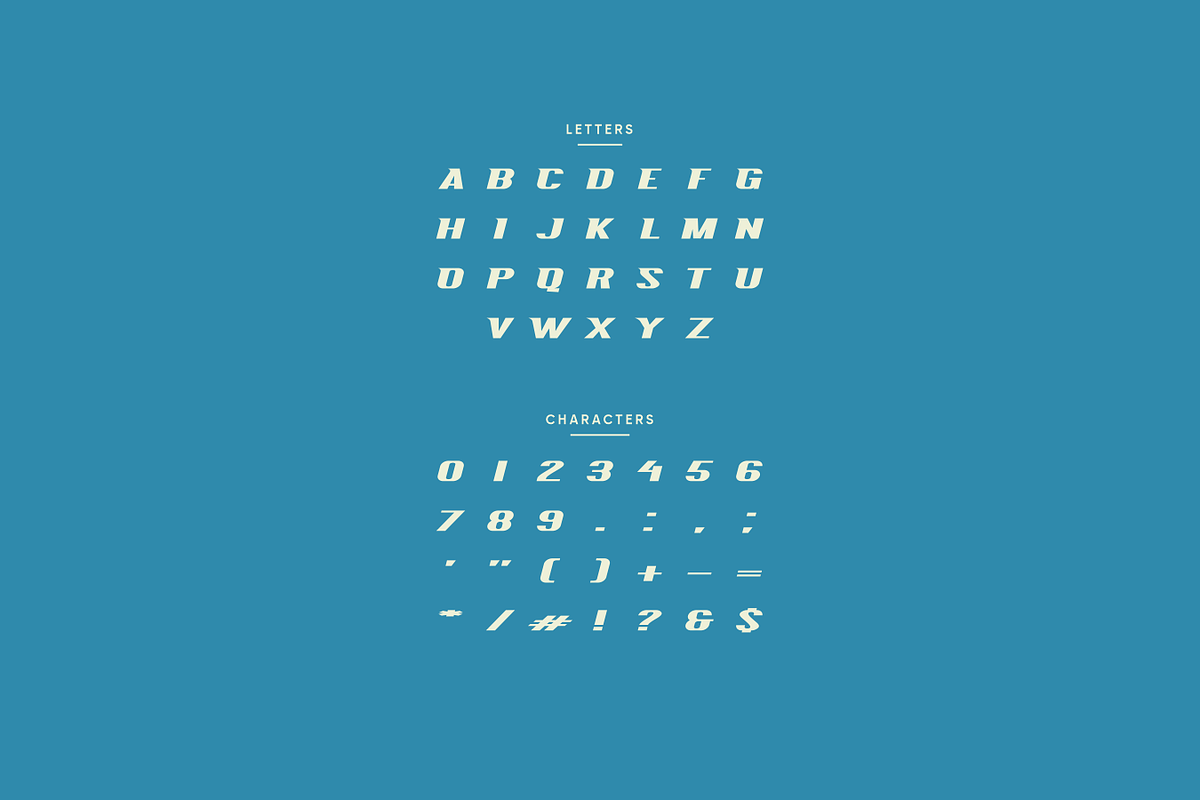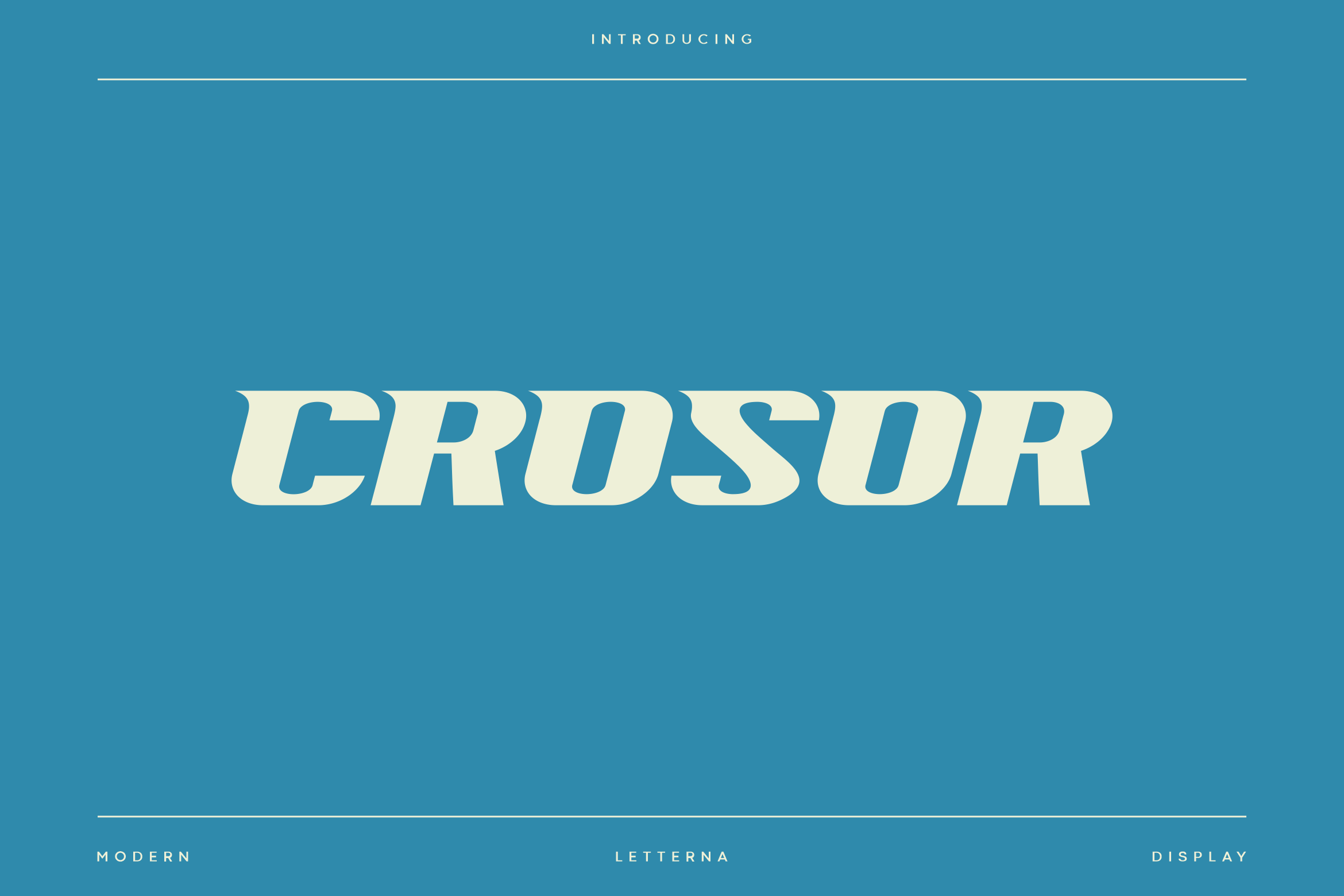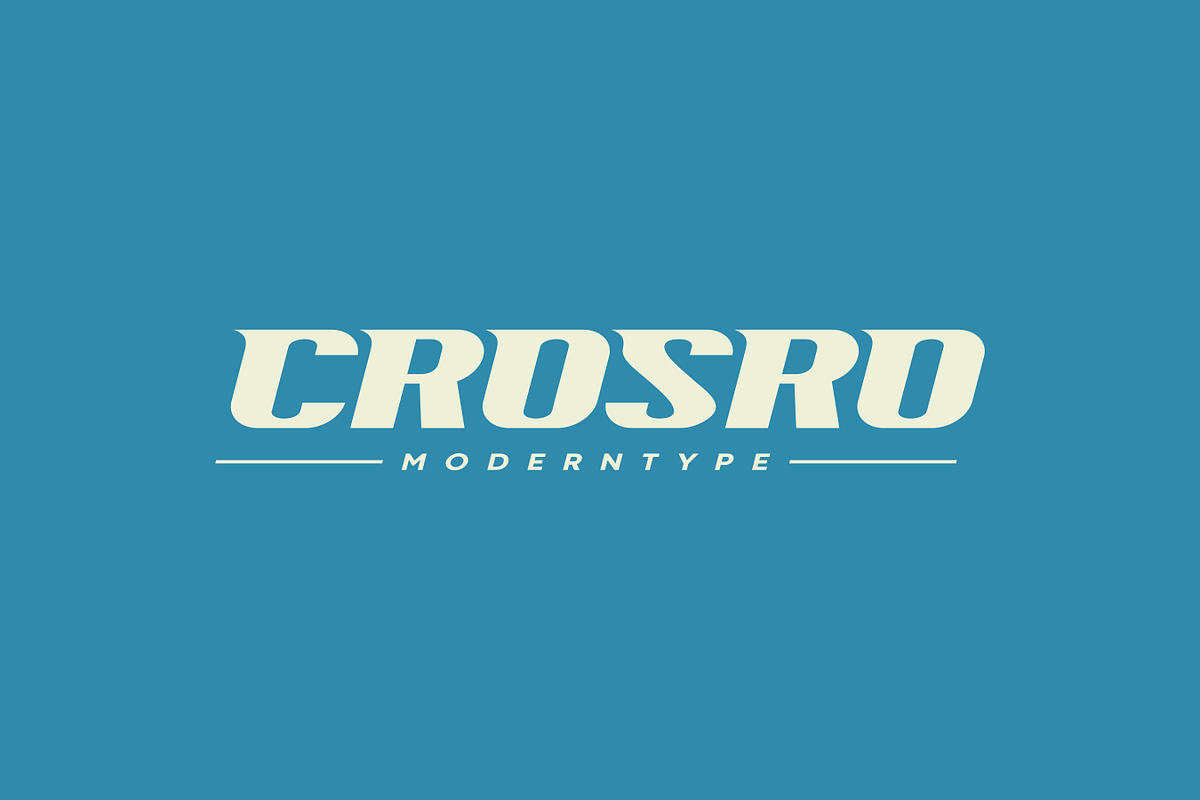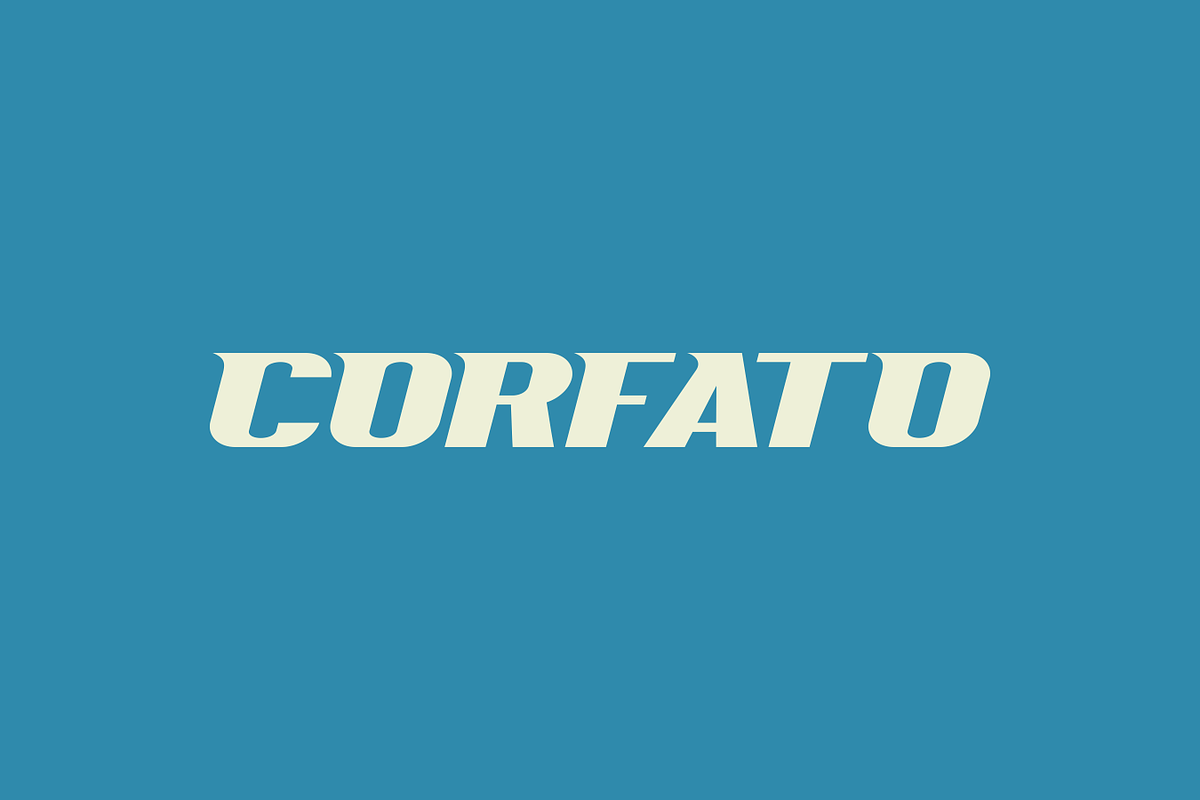
Crosor - Modern Sport Typeface
Crosor a dynamic and bold sport font crafted for champions. This typeface combines sharp edges with sleek curves, inspired by the energy and motion of competitive sports. Very suitable for the title, logo, typography, clothes, magazines, brochures, packaging and much more for your design needs, making your designs more modern and professional.
- Punctuation & Number